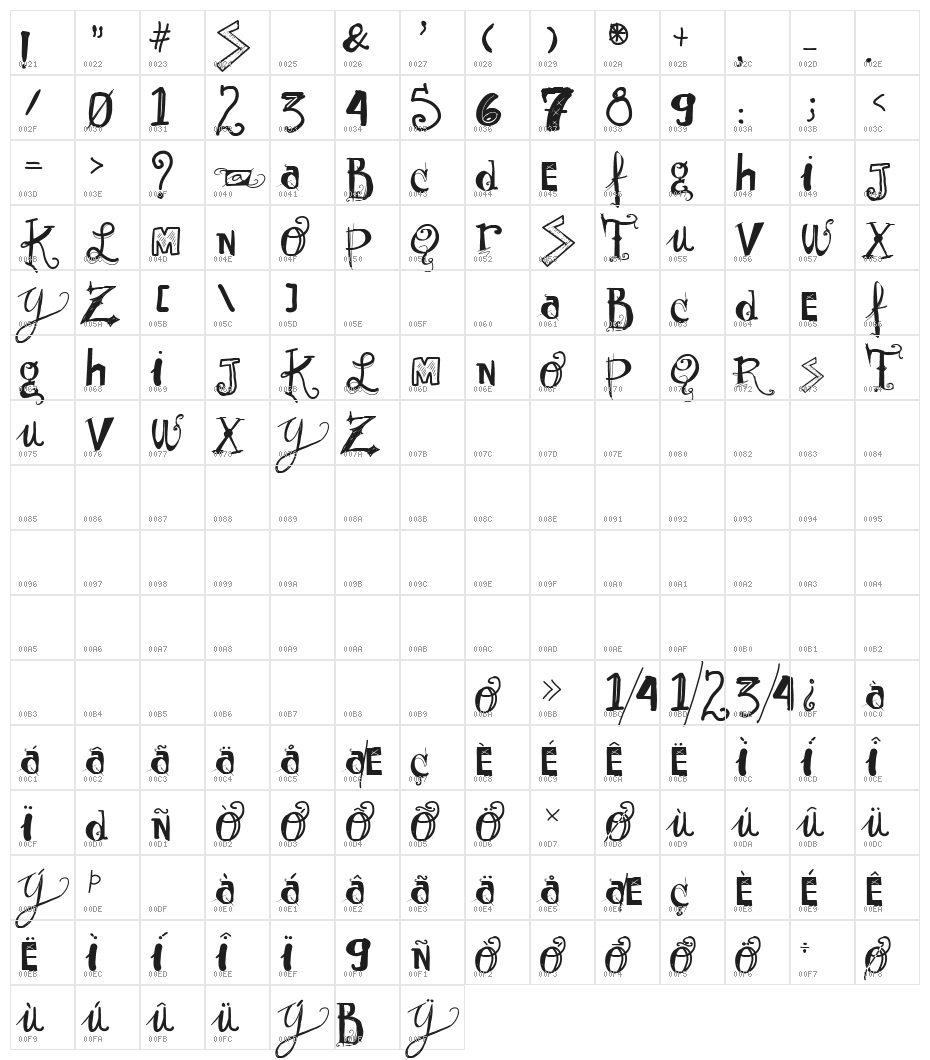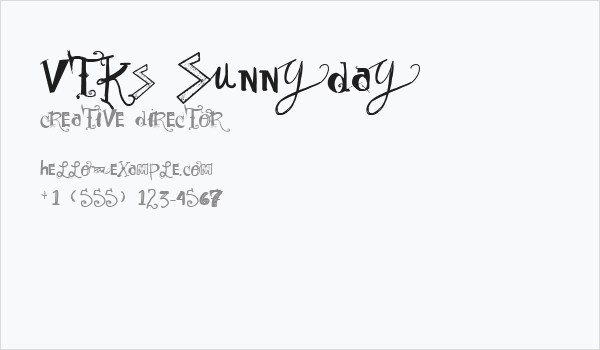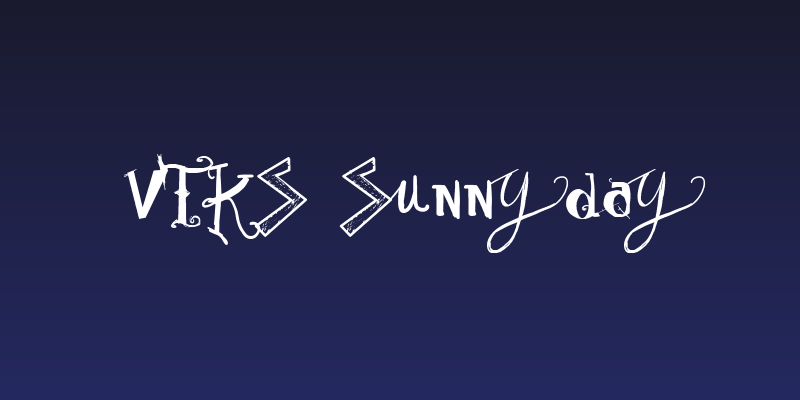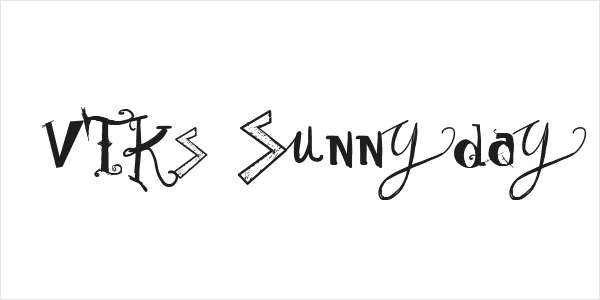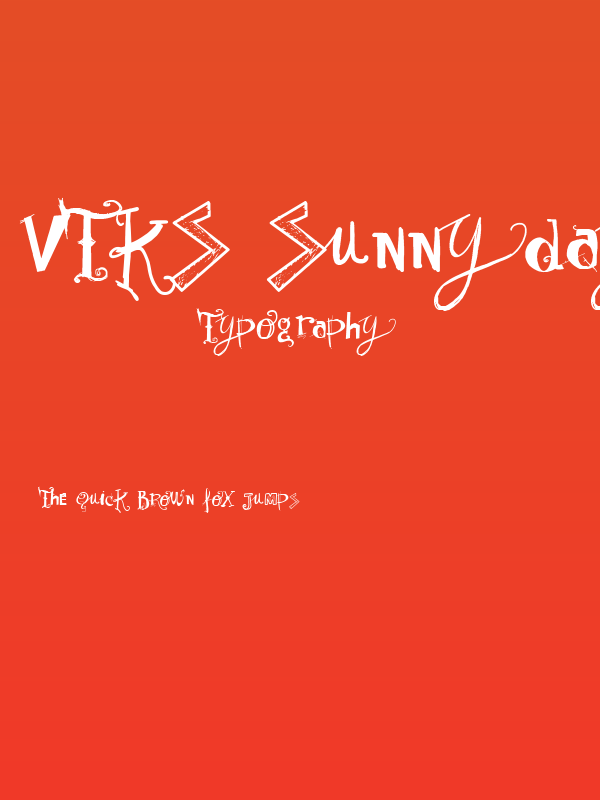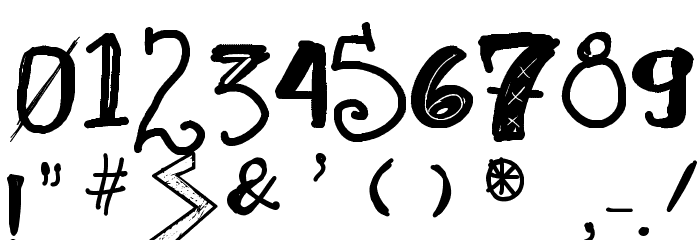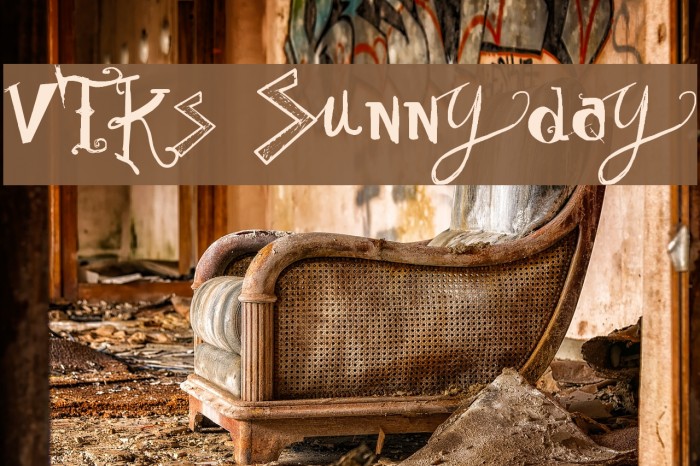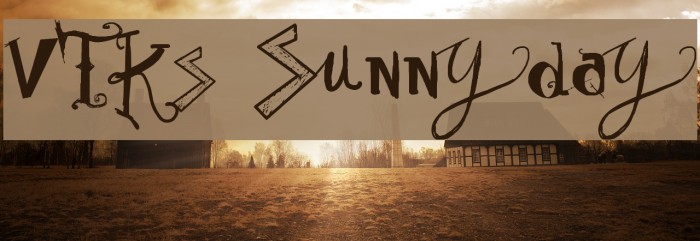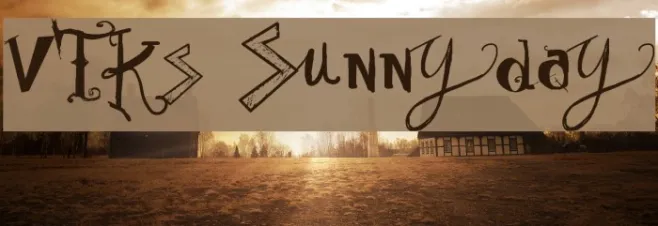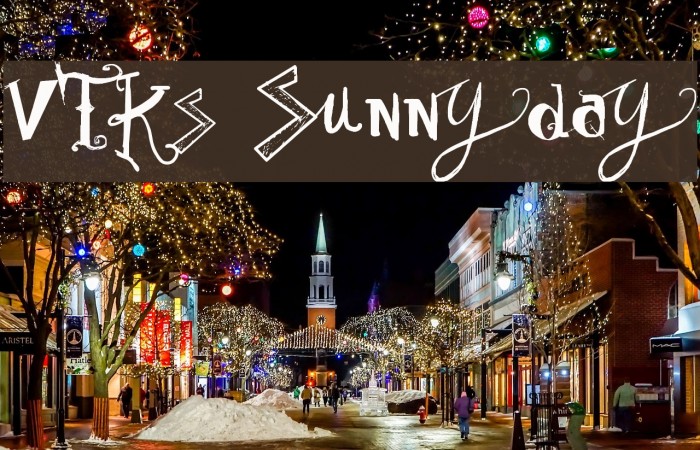
Vtks Sunny Day Font
Vtks Sunny Day Description
This font features a whimsical and playful design, characterized by its irregular and hand-drawn appearance. The letters are adorned with decorative swirls and embellishments, giving it a unique and artistic flair. The uppercase and lowercase letters maintain a consistent style, with exaggerated curves and varying stroke widths that add to its dynamic look. Numbers and special characters follow the same creative theme, making the font versatile for artistic projects. The overall design suggests a sense of fun and creativity, perfect for projects that require a touch of personality and uniqueness.
| Use Case | Logos, Headlines, Artistic projects |
| Proposed Projects | Ideal for greeting cards, children's book covers, playful branding, and artistic posters. |